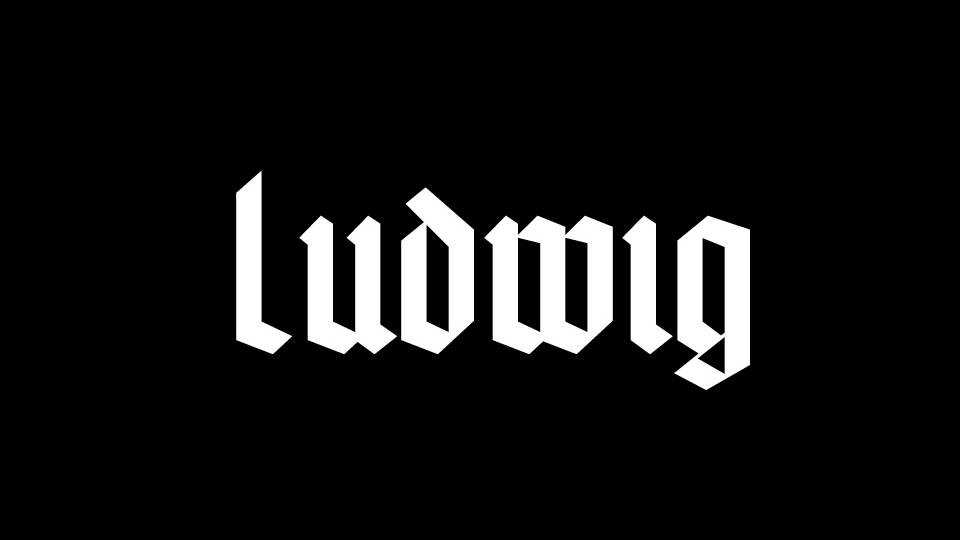
Download Ludwig font, a modern geometric blackletter typeface inspired by the shape and proportions of Rudolf Koch’s fraktur. Ludwig font perfecly suits for headlines, posters, prints and other authentic projects.